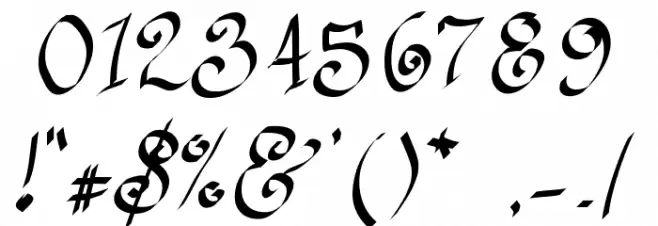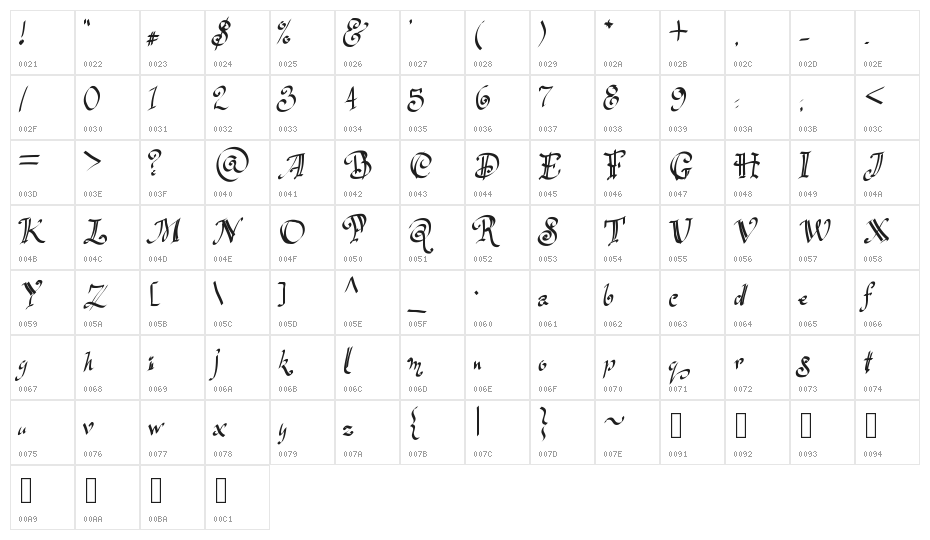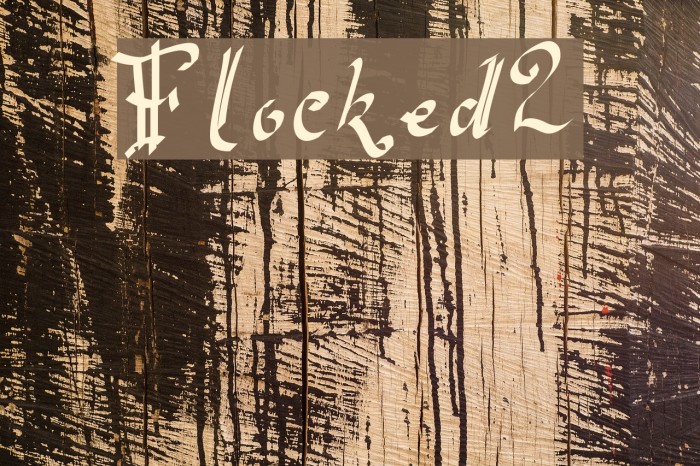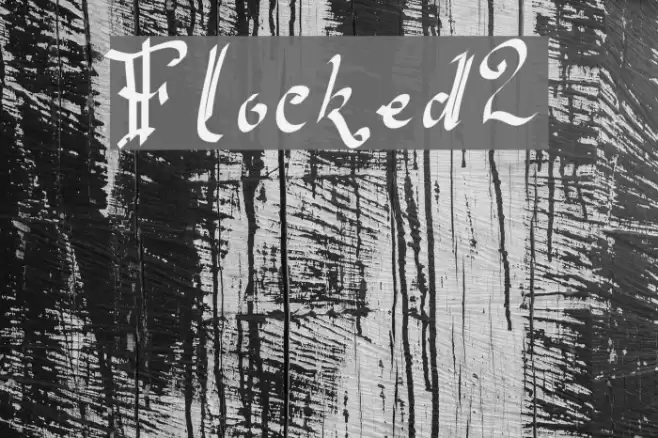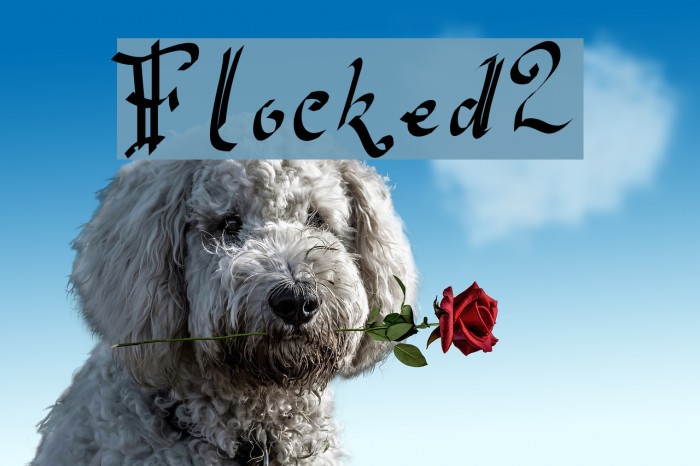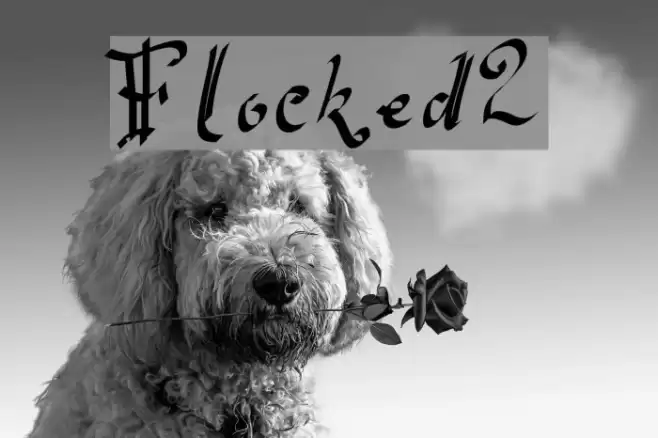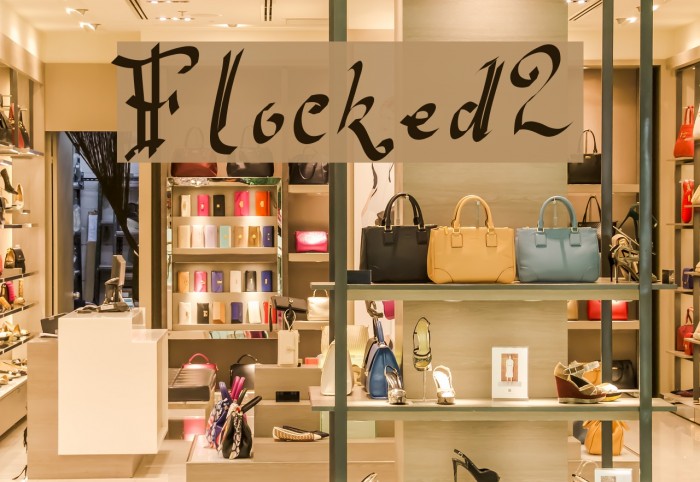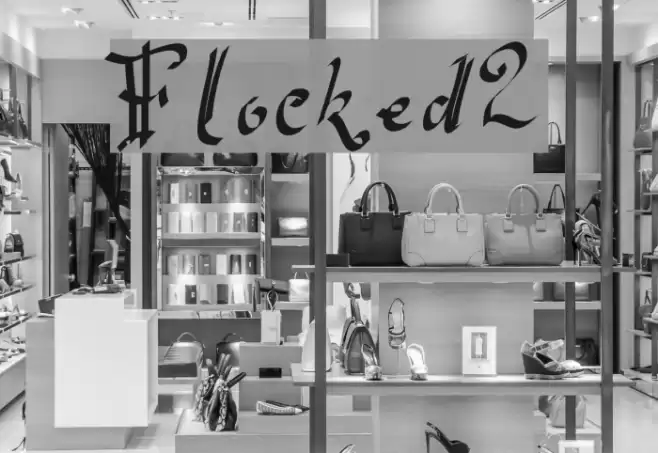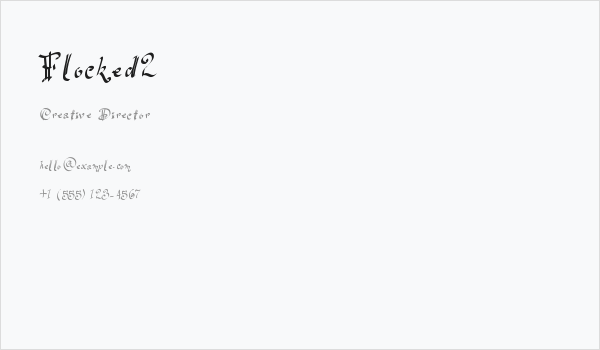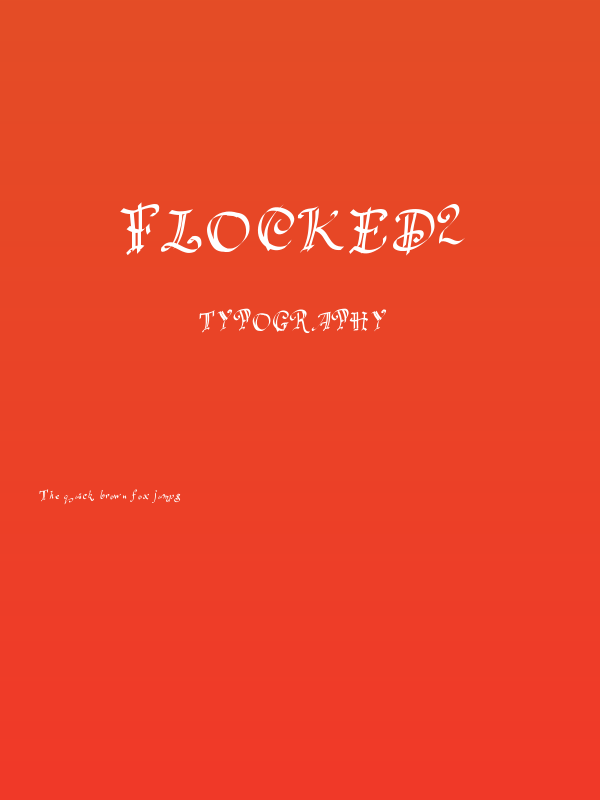
Flocked2 Font
Flocked2 Description
This font features a dynamic and expressive style with a calligraphic influence. The uppercase letters are bold and ornate, with intricate details that give a sense of movement and flair. The lowercase letters maintain a similar aesthetic, offering a cohesive look throughout. Numbers are equally stylized, ensuring consistency across all characters. The special characters are designed to match the overall theme, making this font suitable for creative and artistic projects. Its unique design elements make it stand out, providing a dramatic and eye-catching appearance.